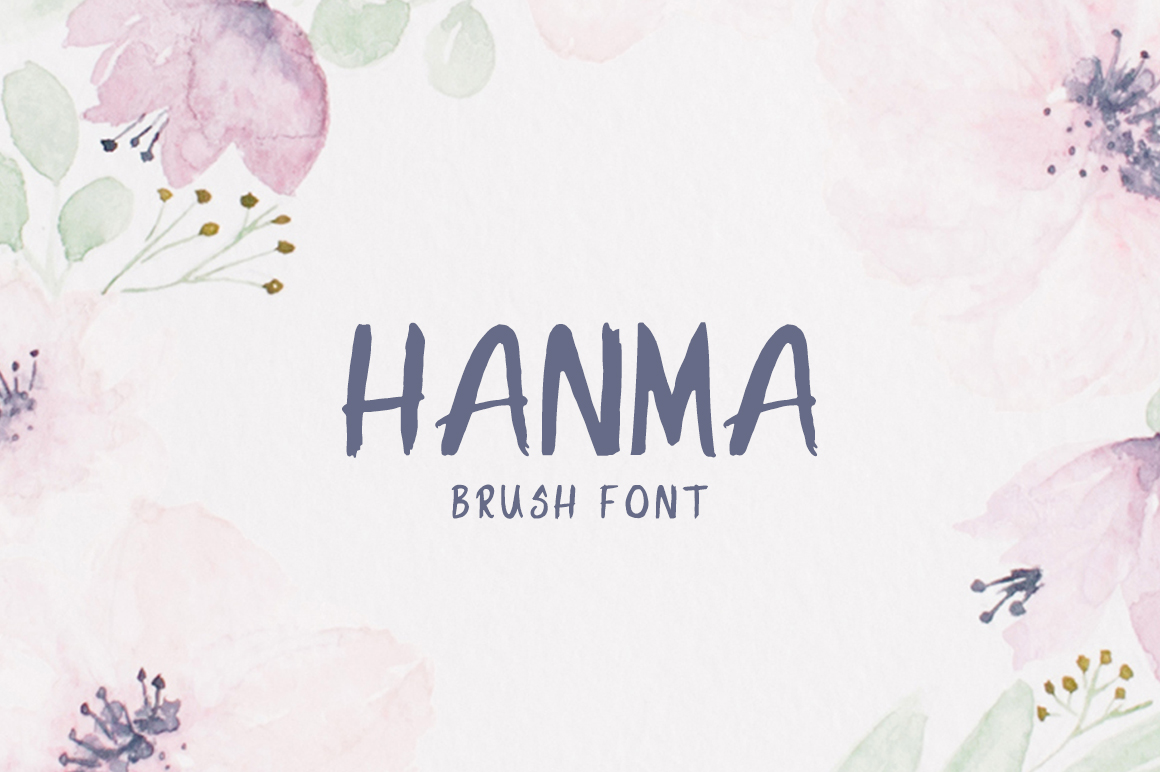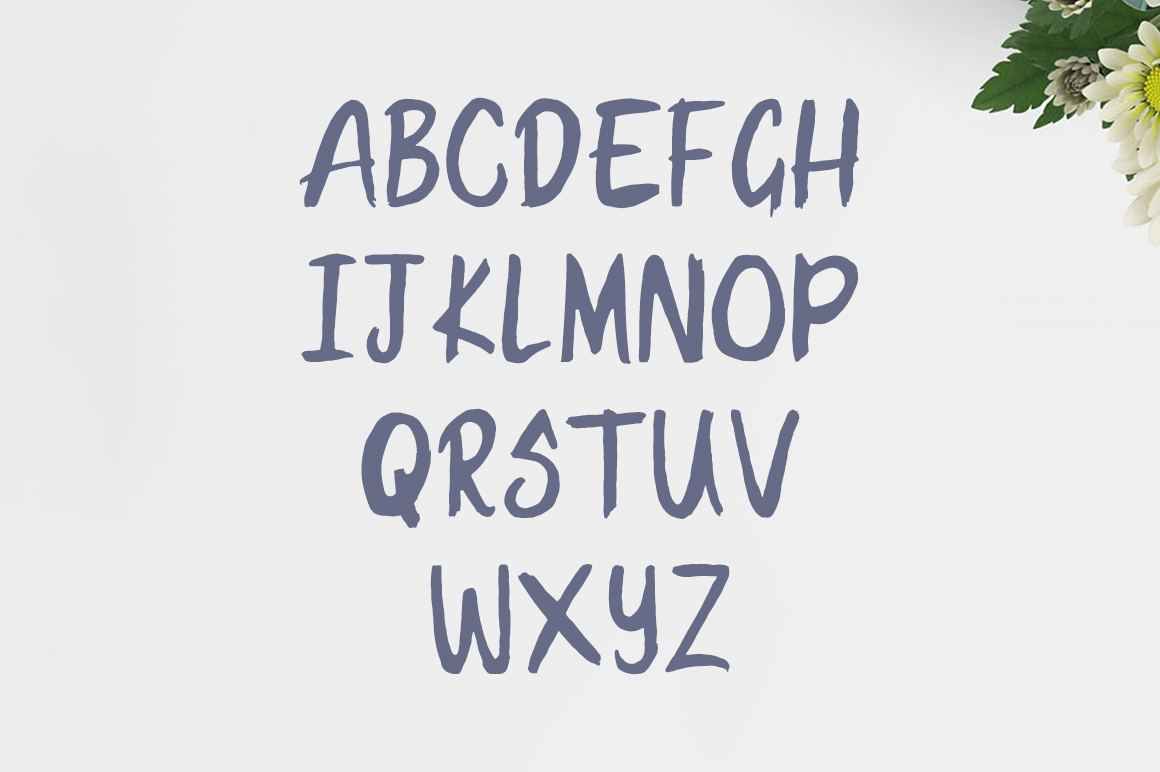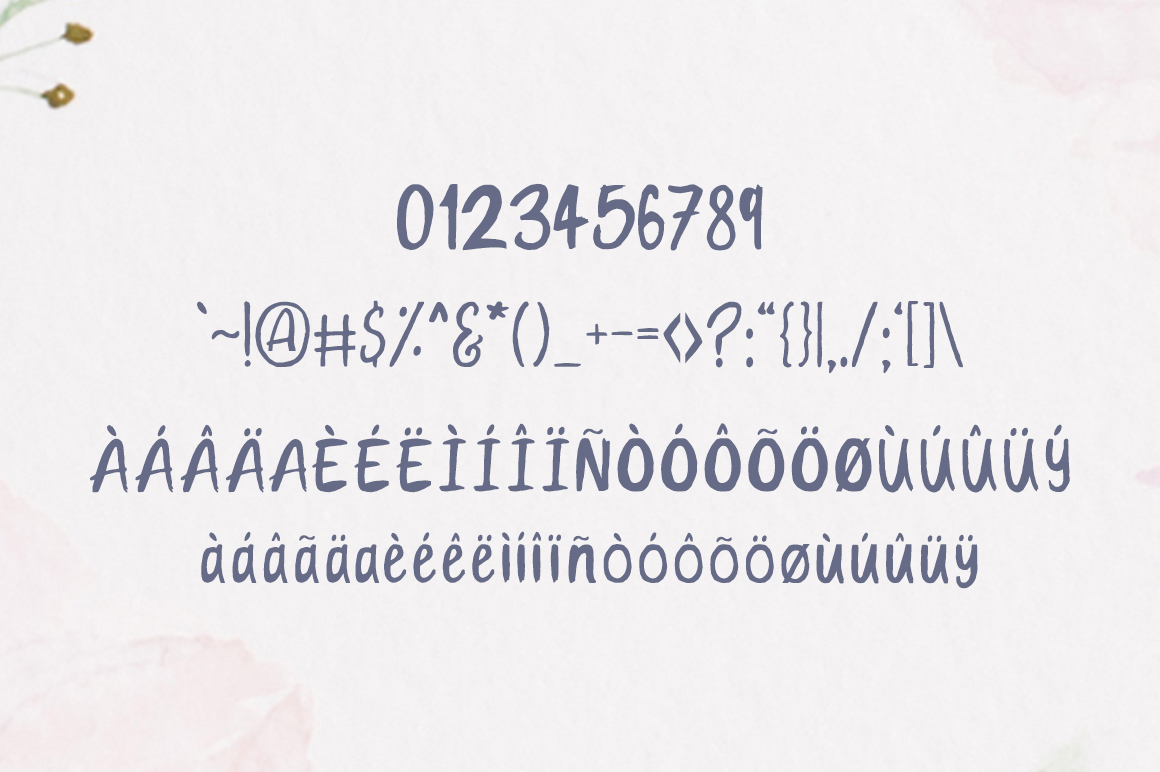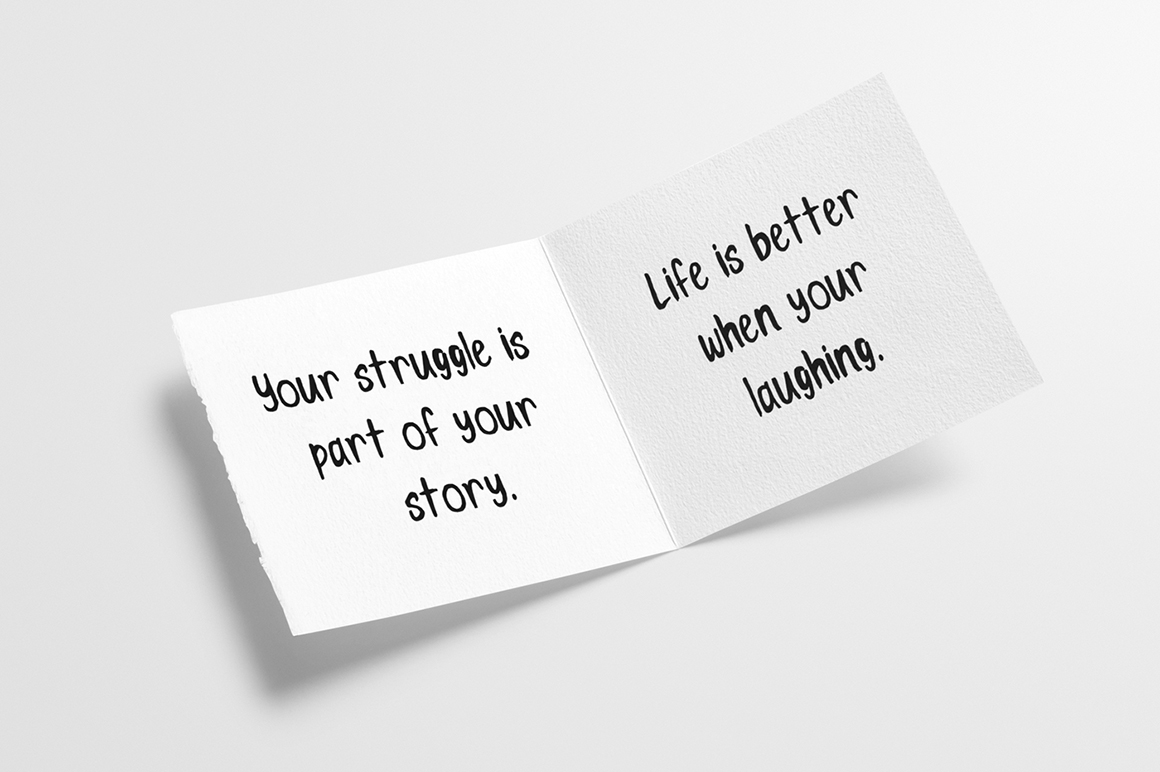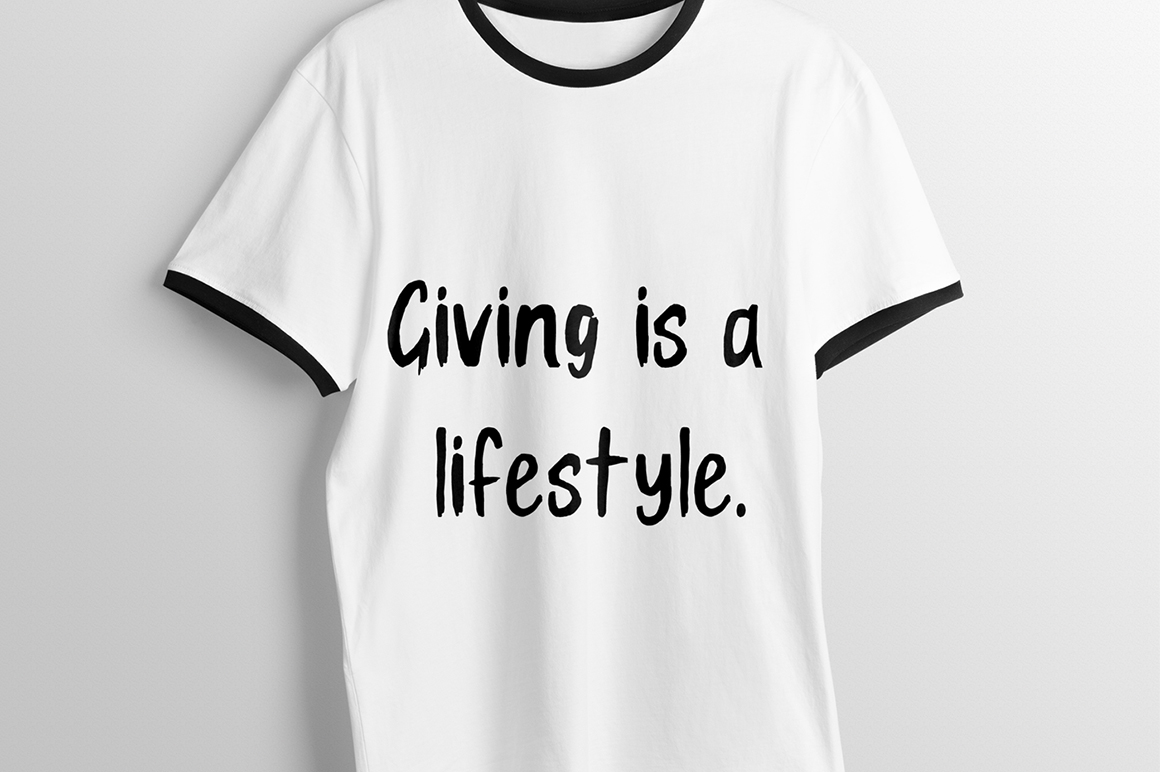
Hanma Font
About Hanma Font
Handma is a contemporary and fresh brush font, perfect for displays. This is an extremely legible font, and in a sans serif style that never goes out of fashion.